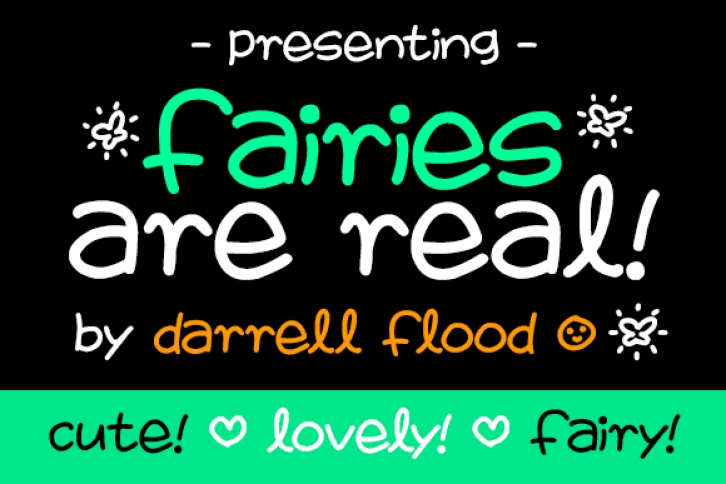
Fairies Are Real is a cute, fun filled, hand-drawn font in a loose marker style. Perfect for school settings and comic themes!
Font created by Darrell Flood.